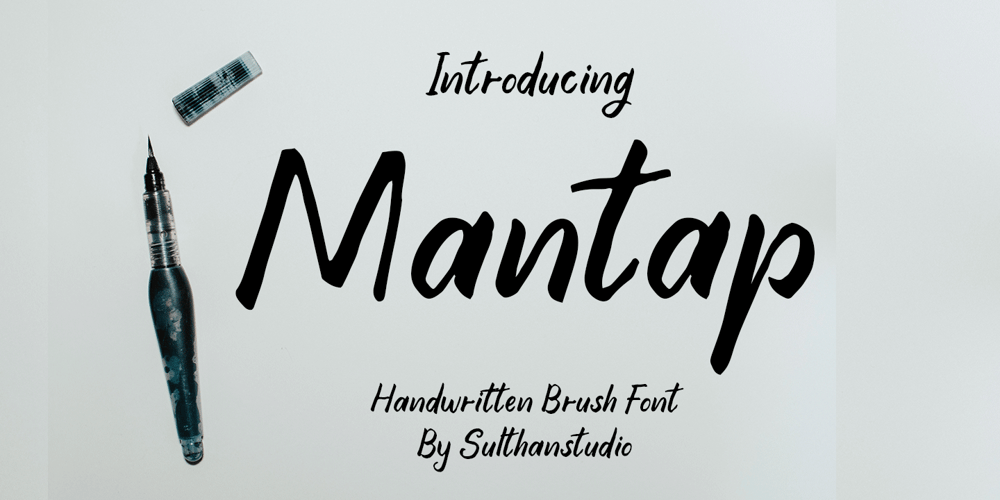
Mantap Font Family was designed by Nasrullah and published by Sulthan Studio. Mantap contains 1 styles and family package options. is a sweet and friendly handwritten font. Its natural and uniquestyle makes it incredibly fitting to a large pool of designs. The only limit isyour imagination!